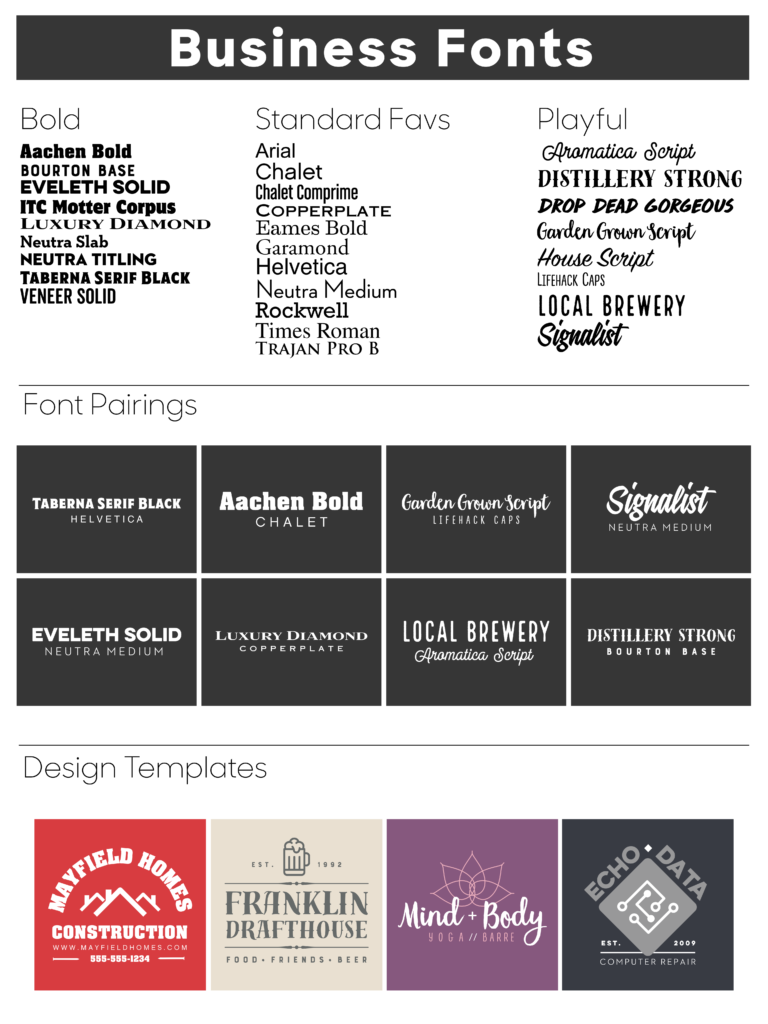
Best Fonts for Business T-shirts
One of the most important parts of business is your branding. Colors and logos are important, but you can’t forget about your fonts. With the right fonts (also known as typefaces) you can make your business signage and marketing materials stand out from the rest. Below are some of our recommendations for establishing your business’ “look” with the best fonts for business t-shirts.
Font Categories
First, a quick primer on fonts. There are two main font styles–serif and sans serif:
1. A serif font has short lines at the ends of the letters, making it look less blocky. One of the most popular serif fonts that you might know is Times.
2. Sans serif fonts are just that–a font “sans” or without serif. A common sans serif font is Arial.
Examples of other font categories are: script, handwritten, Greek, and decorative fonts, which you’ll see in some of our examples below and categorized in our design lab.
Our Best Fonts for Business Picks
For business materials and business t-shirts, we’ve narrowed it down to include fonts in the three main styles we know businesses look for: bold, standard, and playful. In the graphic below, you’ll also see these fonts in font pairings, as well as some of our favorite business templates that use these fonts.
9 Bold Fonts for Business T-shirts
1. Aachen Bold
2. Bourton Base
3. Eveleth Solid
4. ITC Motter Corpus
5. Luxury Diamond
6. Neutra Slab
7. Neutra Titling
8. Taberna Serif Black
9. Veneer Solid
10 Standard Fonts for Business T-shirts
1. Arial
2. Chalet
3. Chalet Comprime
4. Copperplate
5. Eames Bold
6. Garamond
7. Helvetica
8. Neutra Medium
9. Rockwell
10. Trajan Pro B
8 Playful Fonts for Business T-shirts
1. Aromatica Script
2. Distillery Strong
3. Drop Dead Gorgeous
4. Garden Grown Script
5. House Script
6. Lifehack Caps
7. Local Brewery
8. Signalist
Any Business Can Use Fonts
When it comes to the fonts Custom Ink customers use for their businesses, we see that many of them use bold, standard fonts that are easily scalable. When businesses design something for an event or outing, or for a specific department, more playful fonts are often paired with the company’s logo or a unique design.
Pairing Fonts
Almost as important as choosing a font is pairing multiple fonts. Pairing two unique fonts together adds depth and style to your design. You’ll see in our graphic above some of our favorite fonts to pair together. Using Garden Grown Script with LifeHack Caps is perfect for a fun and approachable business. The script is feminine and makes for a great headline, while the playful font is perfect and easy to read for subheadlines and longer areas of text. For something a bit more serious, we love pairing Luxury Diamond with Copperplate. The bold Luxury Diamond give the design a high-end look and the standard fav Copperplate complements it without being overpowering.